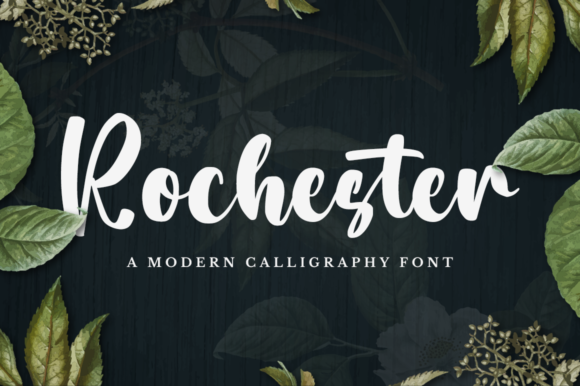
Unleash the beauty of handwritten artistry with Rochester Font, a script font family that epitomizes elegance and charm. Perfect for bloggers seeking a touch of individuality, Rochester effortlessly elevates your designs, logos, branding, and quotes with its graceful strokes and captivating style. Each letter dances across the page with a unique flair, adding a personal touch that makes your creations truly one-of-a-kind.
Immerse yourself in the world of Rochester Font and let your creativity flourish. Its timeless appeal transcends trends, making it a versatile choice for an array of projects. Whether you're crafting a captivating logo that leaves a lasting impression, designing a cohesive brand identity that exudes professionalism, or simply adding a touch of elegance to your quotes, Rochester Font is the perfect companion.
Elevate your designs to new heights with Rochester Font. Its exquisite curves and intricate details bring a sense of sophistication to every project. Bask in the compliments as your audience marvels at the beauty and attention to detail you've poured into your creations. Rochester Font is more than just a font; it's an expression of your unique style and creativity.
Don't settle for ordinary fonts that blend into the background. Embrace the power of Rochester Font and watch as your designs come alive with a touch of magic. Let your imagination soar and let Rochester Font guide you on a journey of artistic expression.